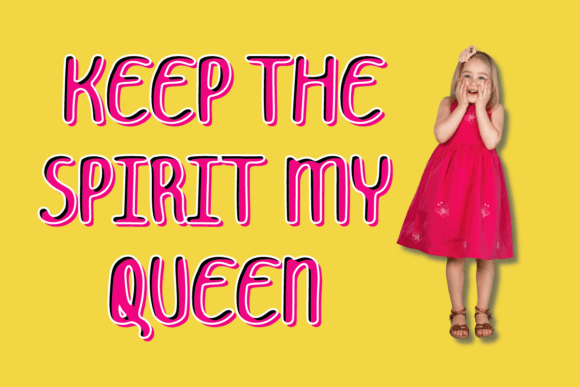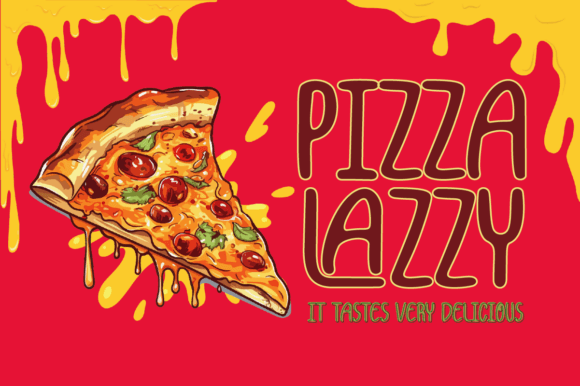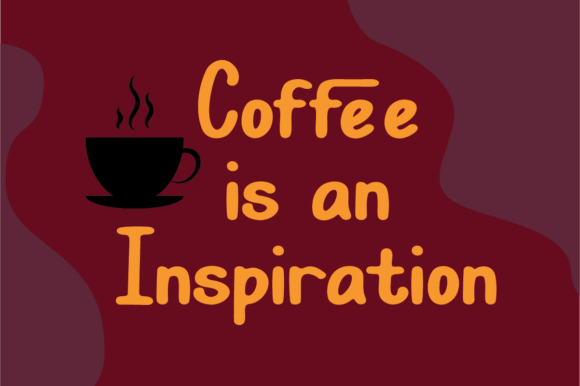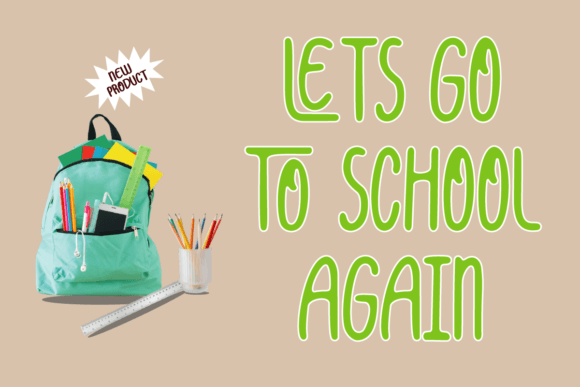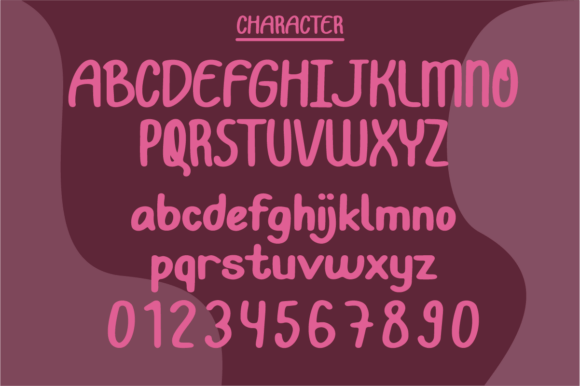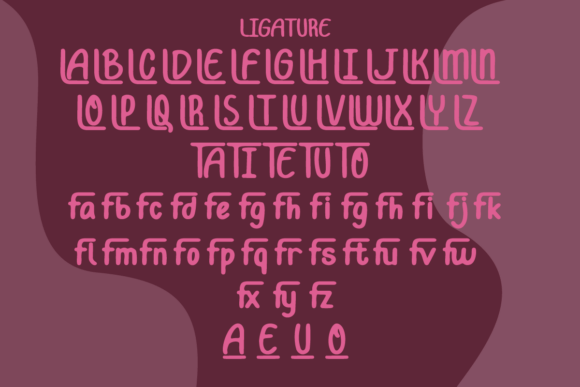
Discover the Magical World of Hello Dinda Font
Welcome to the charming realm of “Hello Dinda”, a vibrant font that sings songs of glee and imagination, specifically woven for the spellbinding universe of children’s literature. Its amicable, rounded lettering and playful sweeps spin a web of enchantment, ideal for engaging the curiosity of young readers.
The Perfect Blend of Artistic Appeal and Legibility
Every character in this exquisite set is carefully crafted, striking the perfect balance between artistic appeal and legibility. The font’s unique design makes it an excellent choice for children’s books, educational materials, and any content aimed at sparking imagination and curiosity in young minds.
Unleashing Creativity with Hello Dinda Font
Accented with just the right hint of whimsy, this font becomes the perfect tool for enriching storybooks, brightening learning materials, or any content with the purpose of igniting the flame of knowledge and wonder in a child’s heart. Designers and crafters can now create engaging and interactive content that will captivate young readers and inspire a love for reading.
Key Features of Hello Dinda Font
- Rounded Lettering: The font’s rounded edges give it a friendly and approachable feel, making it perfect for children’s content.
- Playful Sweeps: The font’s playful curves and lines add a touch of whimsy, making it ideal for storybooks and educational materials.
- Legible: Despite its artistic appeal, the font remains highly legible, ensuring that young readers can easily read and understand the content.
- Whimsical Accents: The font’s subtle whimsical accents add a touch of magic, making it perfect for content aimed at sparking imagination and creativity.
Using Hello Dinda Font in Design Projects
Hello Dinda font is versatile and can be used in a variety of design projects, including:
- Children’s Books: Create engaging and interactive storybooks that will captivate young readers.
- Educational Materials: Brighten up learning materials, such as worksheets, activity sheets, and educational posters.
- Digital Content: Use the font to create interactive digital content, such as e-books, games, and animations.
- Crafting Projects: Add a touch of whimsy to crafting projects, such as handmade cards, gift tags, and scrapbooking.
Hello Dinda font is a vibrant and charming font that is specifically designed for children’s literature. Its unique blend of artistic appeal and legibility makes it an excellent choice for designers and crafters looking to create engaging and interactive content for young readers. With its rounded lettering, playful sweeps, and whimsical accents, this font is sure to spark imagination and creativity in children. So why wait? Download Hello Dinda font today and start creating magical content for kids!